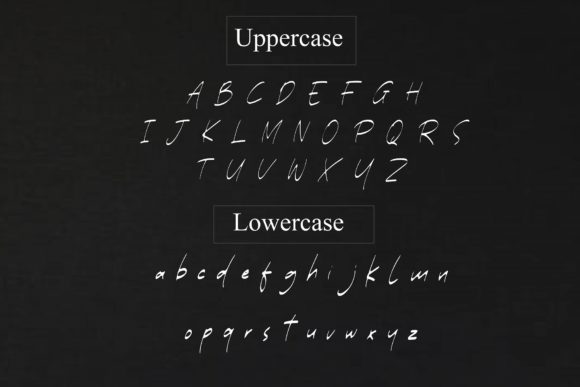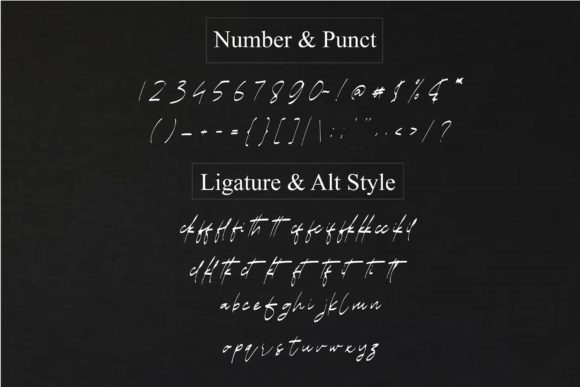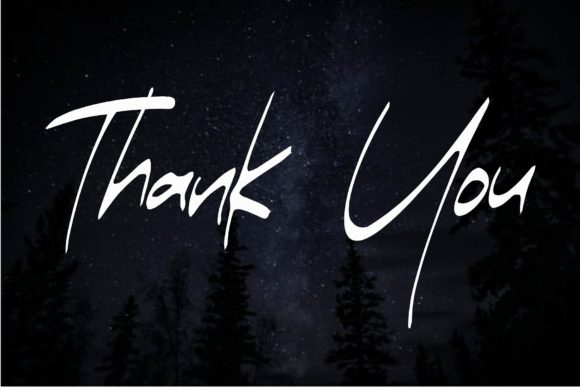
About Cadnicts Font
Cadnicts is a clean and stylish handwritten. No matter the topic, this font will be an incredible asset to your fonts’ library, as it has the potential to elevate any creation.